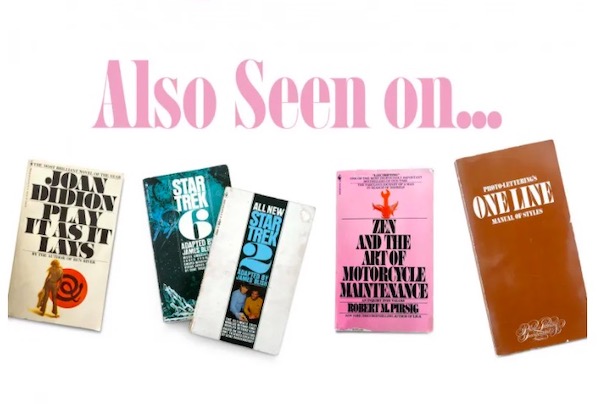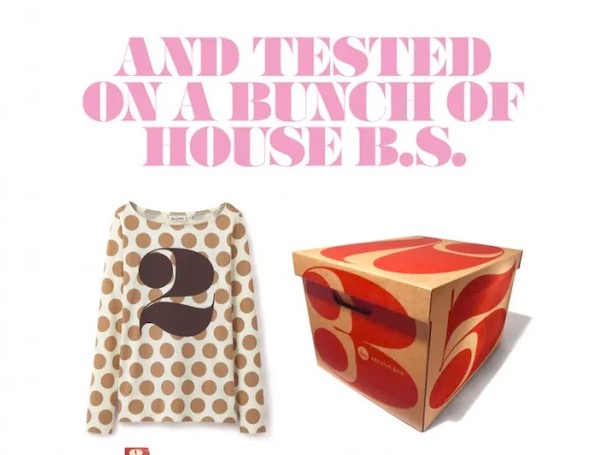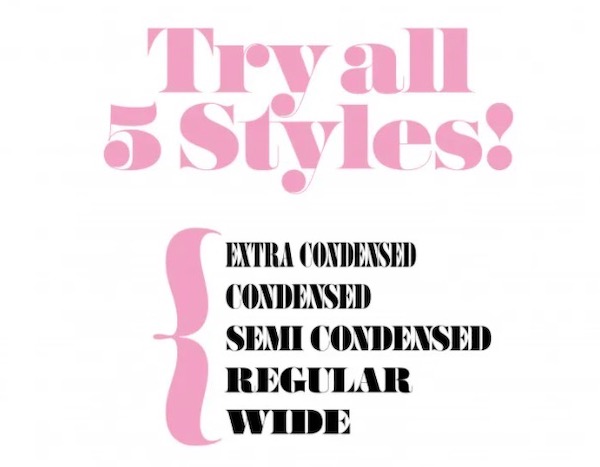
Montage font was created and shared for versatile designs. You can see that it also has some gorgeous characteristics that make your design more beautiful.
Benguiat Montage Serif Font